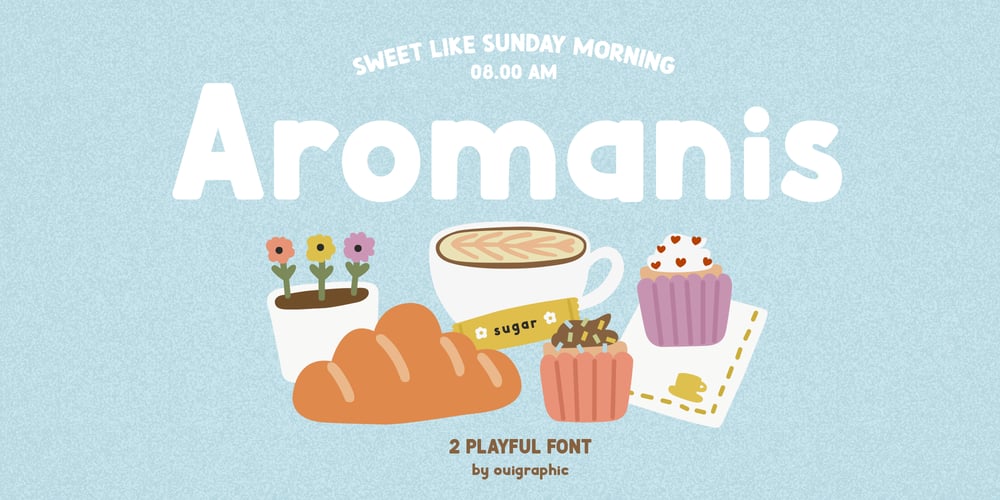
Aromanis Font Family was designed by Ica Riza and published by Oui Studio. Aromanis contains 2 styles and family package options. Hello friends! The ‘Aromanis’ font is coming, a playful and sweet font in two variants: Regular and Shadow.Aromanis font comes with a complete package of uppercase, lowercase, numeric, punctuation, multilingual characters, and some of the alternative glyphs to add an extra to your word. It’s perfect for branding, logo, invitation, greeting card, packaging, graphic tee, poster, anything that you need to make a playful, fun, neat and sweet effect in your works. Happy creating ๐